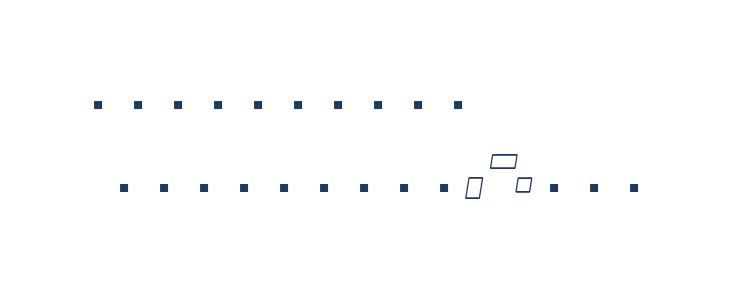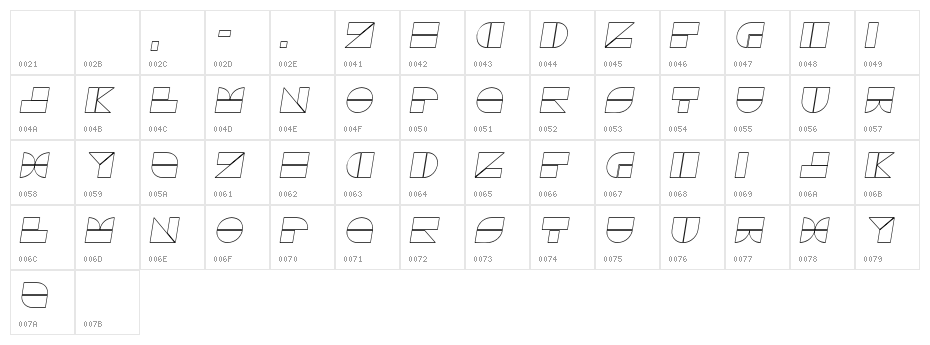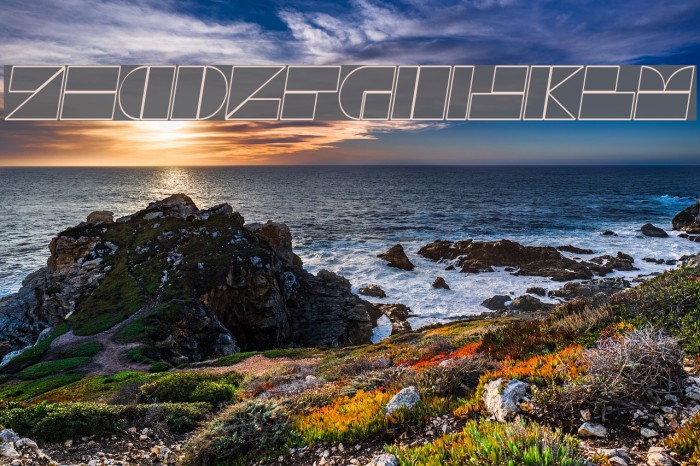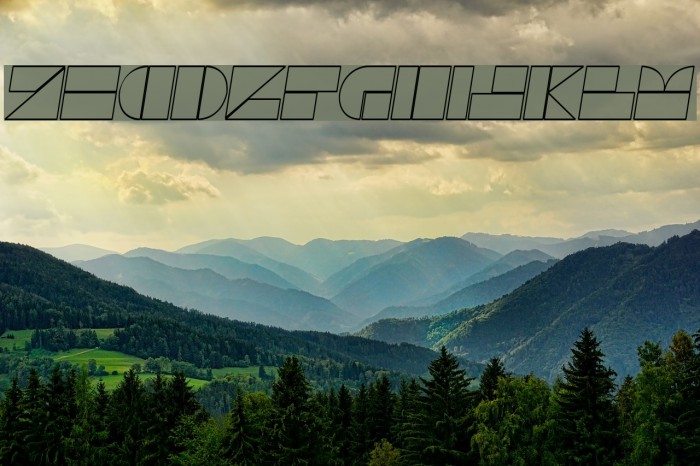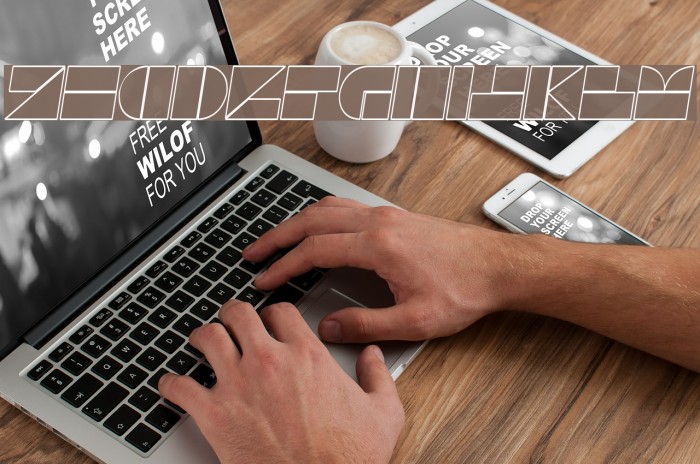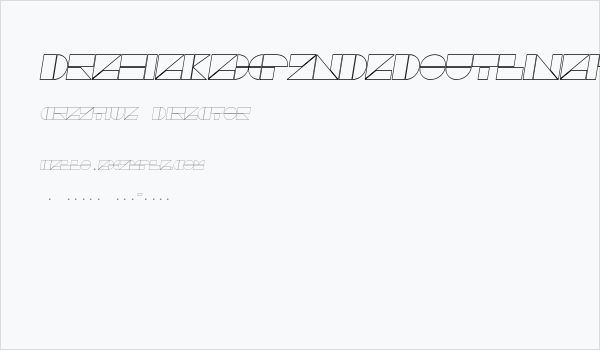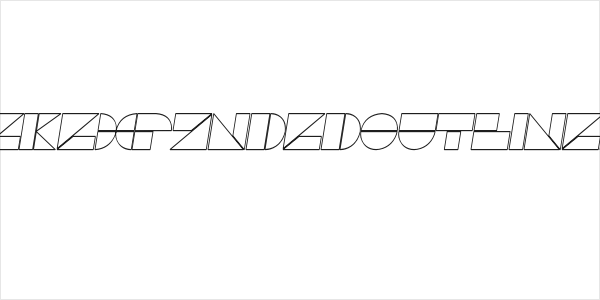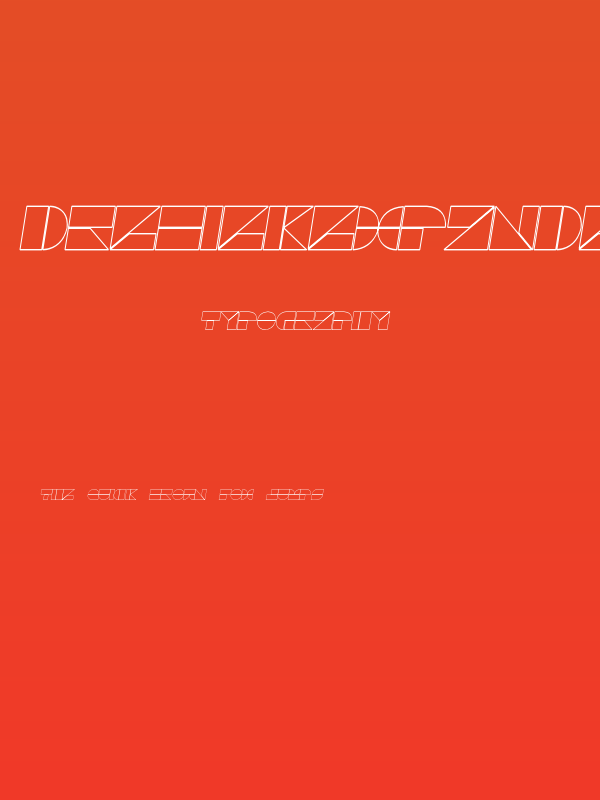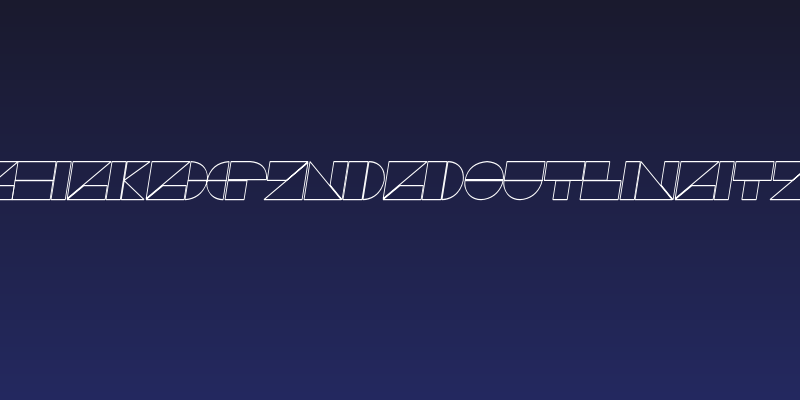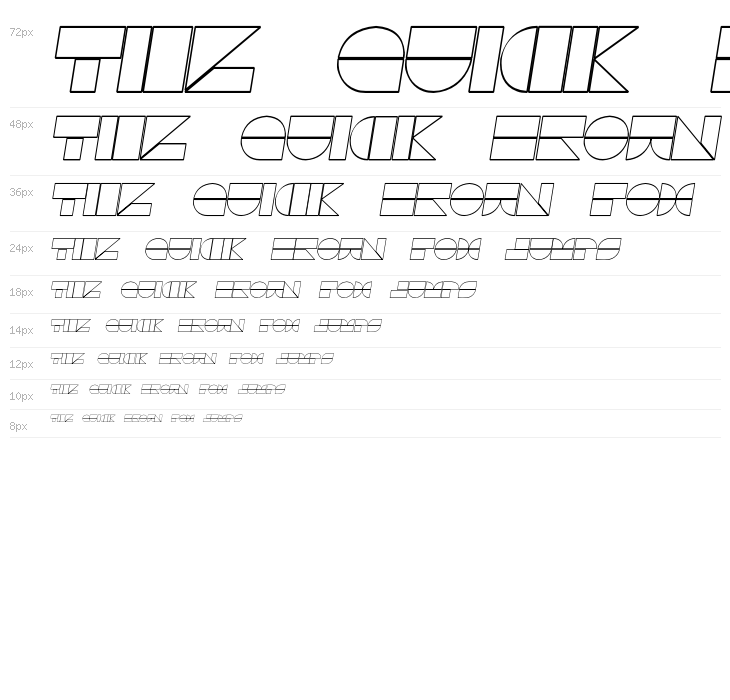
DrebiekExpandedOutlineItalic Font
DrebiekExpandedOutlineItalic Description
This font features a geometric and futuristic design with an expanded outline style. Each character is constructed with clean, angular lines and a distinct italic slant, giving it a dynamic and modern appearance. The uppercase and lowercase letters maintain a consistent width, contributing to a uniform look across the typeface. The numbers and special characters follow the same design principles, ensuring a cohesive visual identity. The font's outline style adds a unique dimension, making it suitable for creative and bold design projects.
| Proposed Projects | Ideal for futuristic branding, tech-related designs, posters, and digital media. |